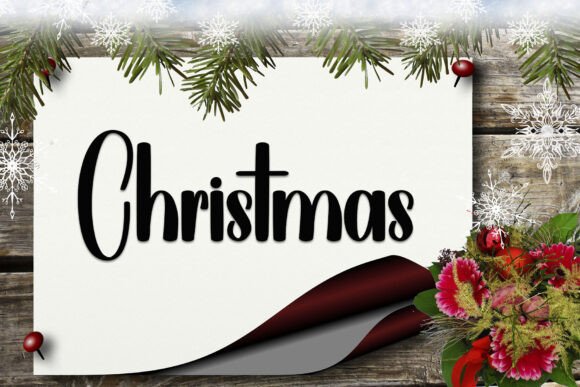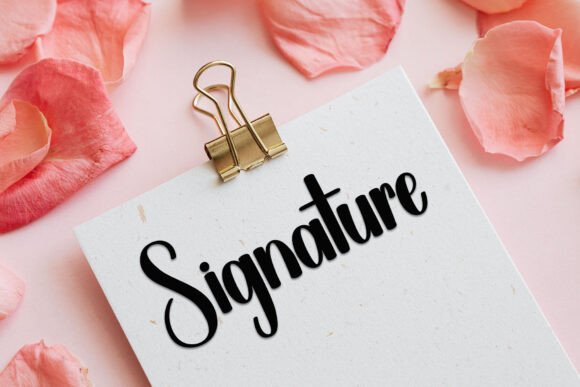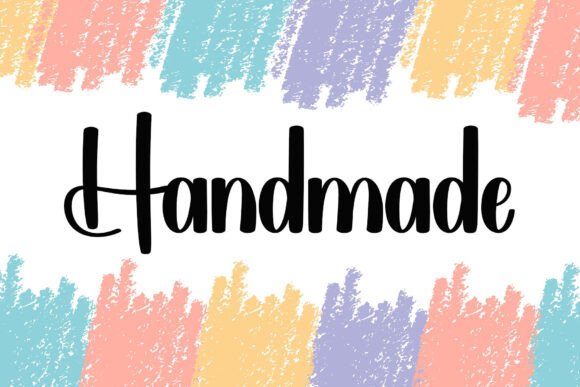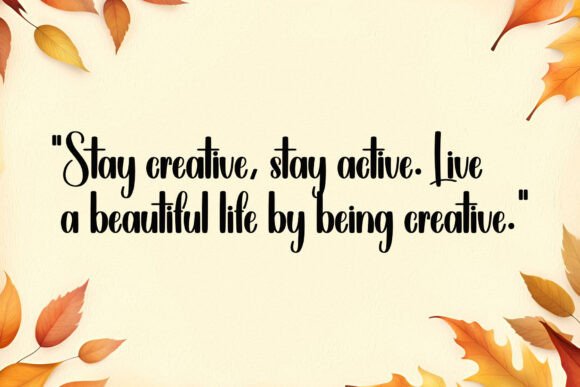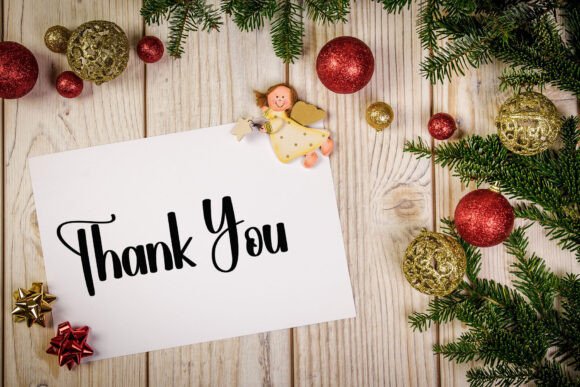
Discover the Elegance of Cardinal Font: A Timeless Choice for Designers and Crafters
Are you on the hunt for a font that exudes elegance and sophistication? Look no further than the Cardinal Font. This stunning handwritten font is described by its neat and beautiful appearance, with an elegant touch that makes it perfect for a wide range of projects. Whether you’re a designer, crafter, or simply someone who appreciates the art of typography, Cardinal Font is sure to capture your heart with its incredibly distinct and timeless style.
The Characteristics of Cardinal Font
So, what makes Cardinal Font so special? For starters, its elegant and refined appearance sets it apart from other fonts. The letters are carefully crafted to create a sense of fluidity and movement, making it perfect for designs that require a touch of sophistication. The font is also highly legible, making it suitable for use in a variety of contexts, from body text to headings and titles.
Another notable feature of Cardinal Font is its versatility. Whether you’re creating a wedding invitation, a logo, or a social media graphic, this font is sure to adapt to your needs. Its neutral tone makes it easy to pair with other design elements, and its unique style ensures that your designs will stand out from the crowd.
The Benefits of Using Cardinal Font
So, why should you choose Cardinal Font for your next project? Here are just a few benefits of using this beautiful font:
- Elegance and sophistication: Cardinal Font adds a touch of elegance and sophistication to any design, making it perfect for projects that require a high level of refinement.
- Versatility: This font is highly versatile and can be used in a wide range of contexts, from digital designs to print materials.
- Legibility: Cardinal Font is highly legible, making it suitable for use in body text as well as headings and titles.
- Uniqueness: With its unique and timeless style, Cardinal Font is sure to make your designs stand out from the crowd.
How to Use Cardinal Font in Your Designs
Using Cardinal Font in your designs is easy. Here are a few tips to get you started:
- Pair it with other fonts: Cardinal Font pairs well with other fonts, especially those with a similar elegant and refined appearance. Try pairing it with a sans-serif font for a modern look or a serif font for a more traditional feel.
- Use it for headings and titles: Cardinal Font is perfect for use in headings and titles, where its elegant and refined appearance can really shine.
- Experiment with colors: Cardinal Font looks great in a variety of colors, from bold and bright to soft and pastel. Experiment with different colors to find the one that works best for your design.
Who Can Benefit from Using Cardinal Font?
Cardinal Font is a versatile font that can be used by a wide range of designers and crafters, including:
- Graphic designers: Cardinal Font is perfect for use in graphic design projects, such as logos, brochures, and business cards.
- Wedding planners and stationery designers: This font is ideal for use in wedding invitations, save-the-date cards, and other stationery designs.
- Crafters and DIY enthusiasts: Cardinal Font can be used in a variety of craft projects, such as handmade cards, scrapbooking, and iron-on designs.
- Digital designers: This font can be used in digital designs, such as social media graphics, blog posts, and website headers.
In conclusion, Cardinal Font is a beautiful and elegant handwritten font that is perfect for designers and crafters who want to add a touch of sophistication to their projects. With its unique and timeless style, versatility, and legibility, this font is sure to become a favorite in your design toolkit. So why not give it a try and see the difference it can make in your designs?